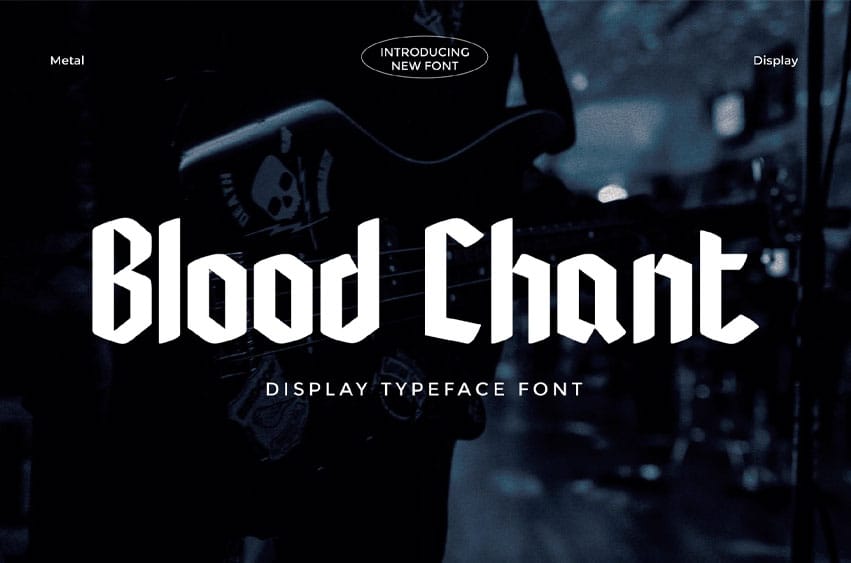
Blood Chant Font is a bold and uncompromising display typeface, forged with sharp edges, geometric precision, and a fierce modern gothic influence. Its angular forms and commanding presence evoke raw energy, making it the perfect choice for metal band logos, edgy branding, striking posters, or any design that demands attitude and dominance.